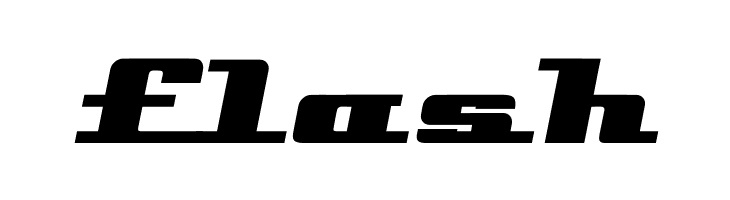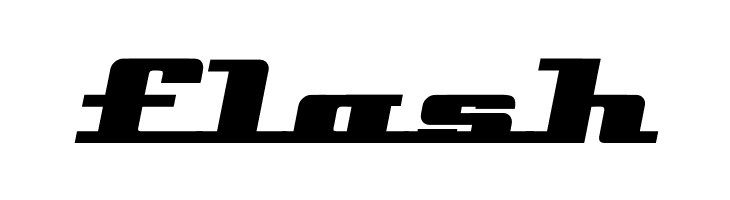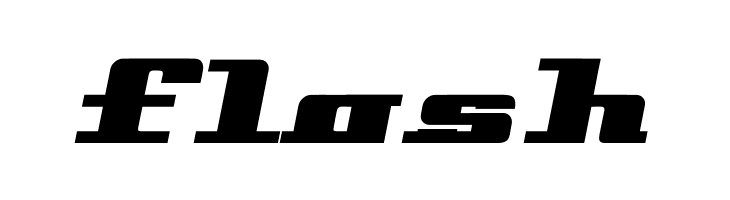
Blue Julieta Italic Font
- Font: Blue Julieta Italic
( Fonts by Tup Wanders - www.tupwanders.nl )
A bold, angular font with a modern and dynamic style.